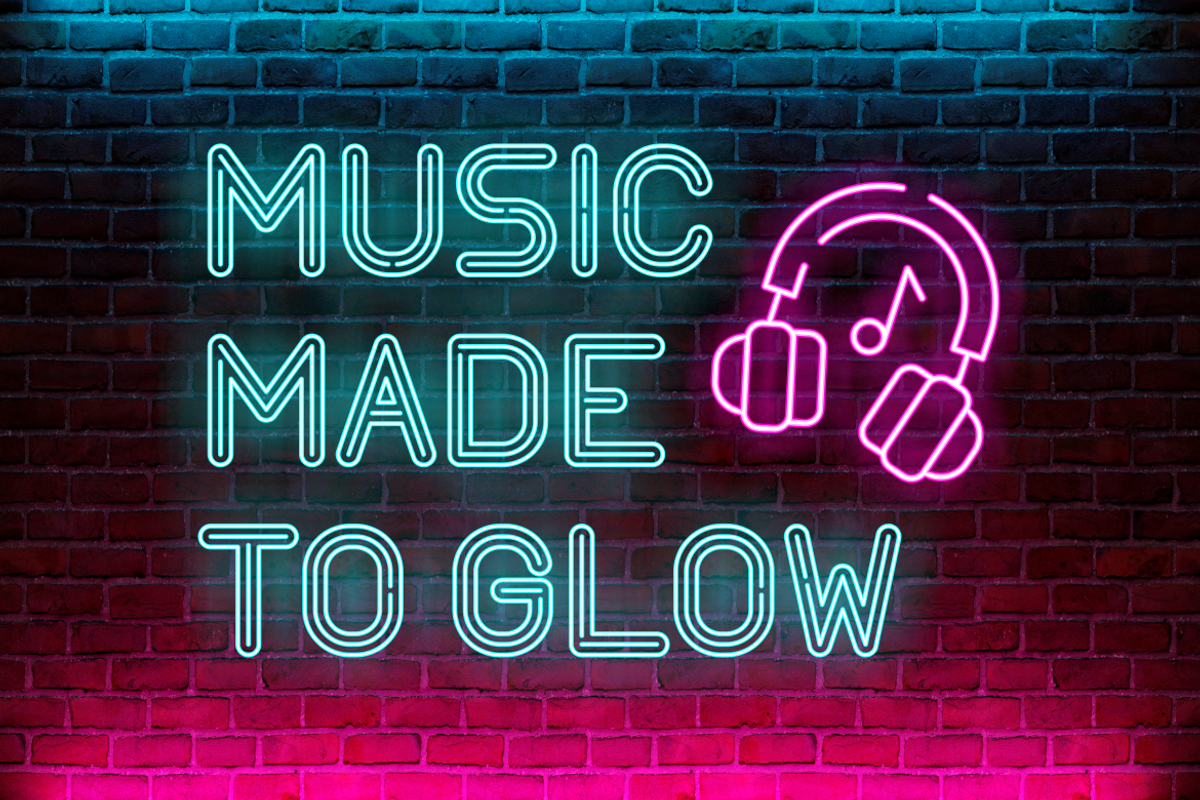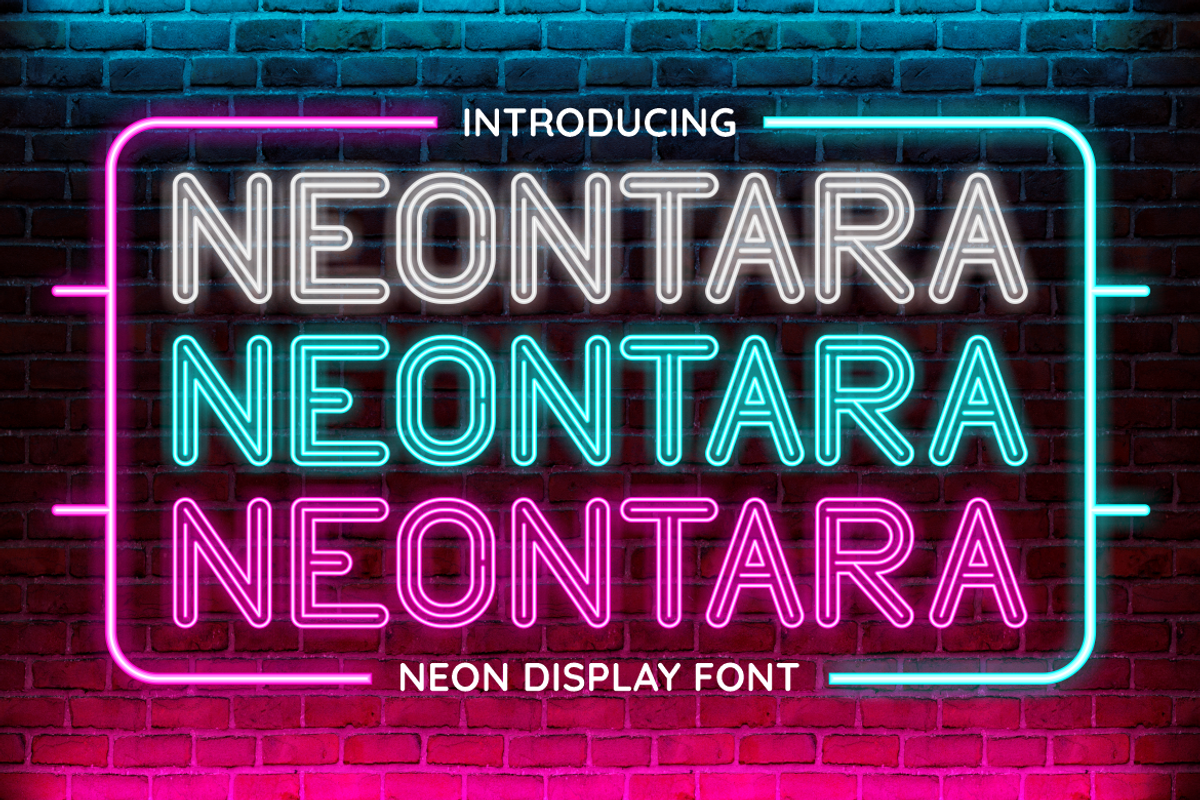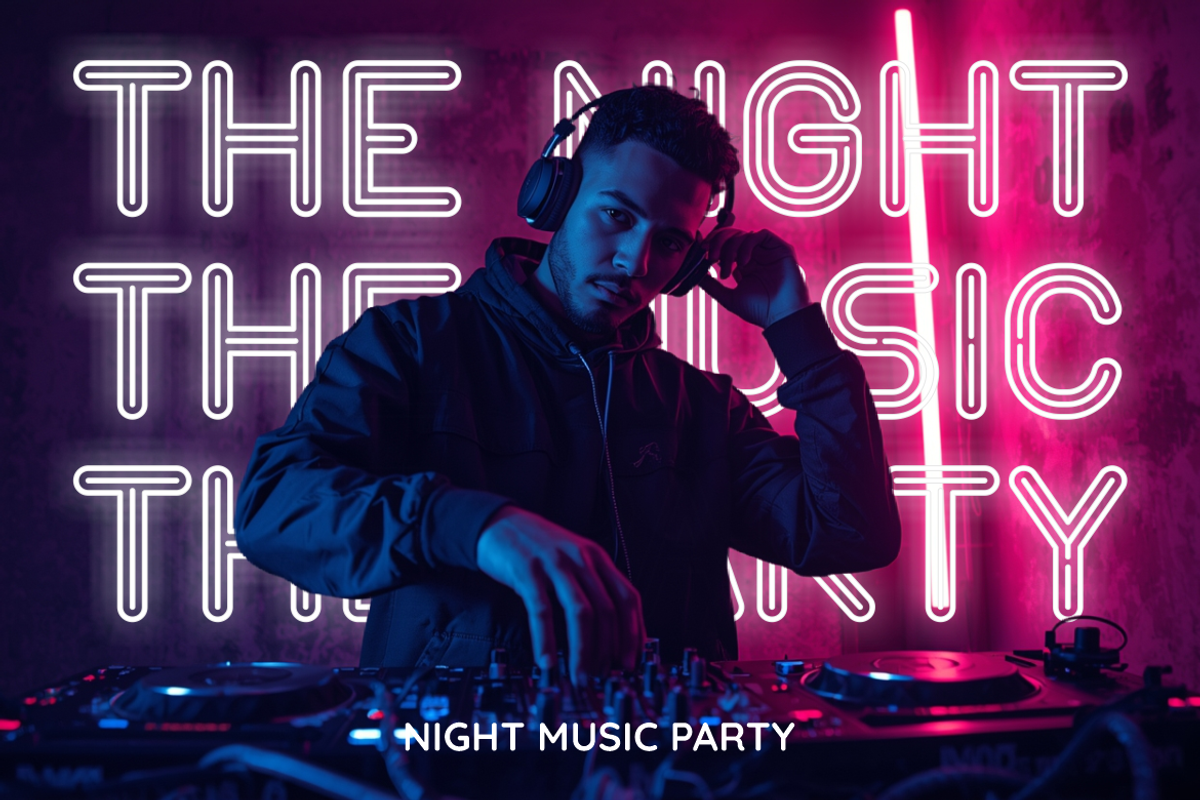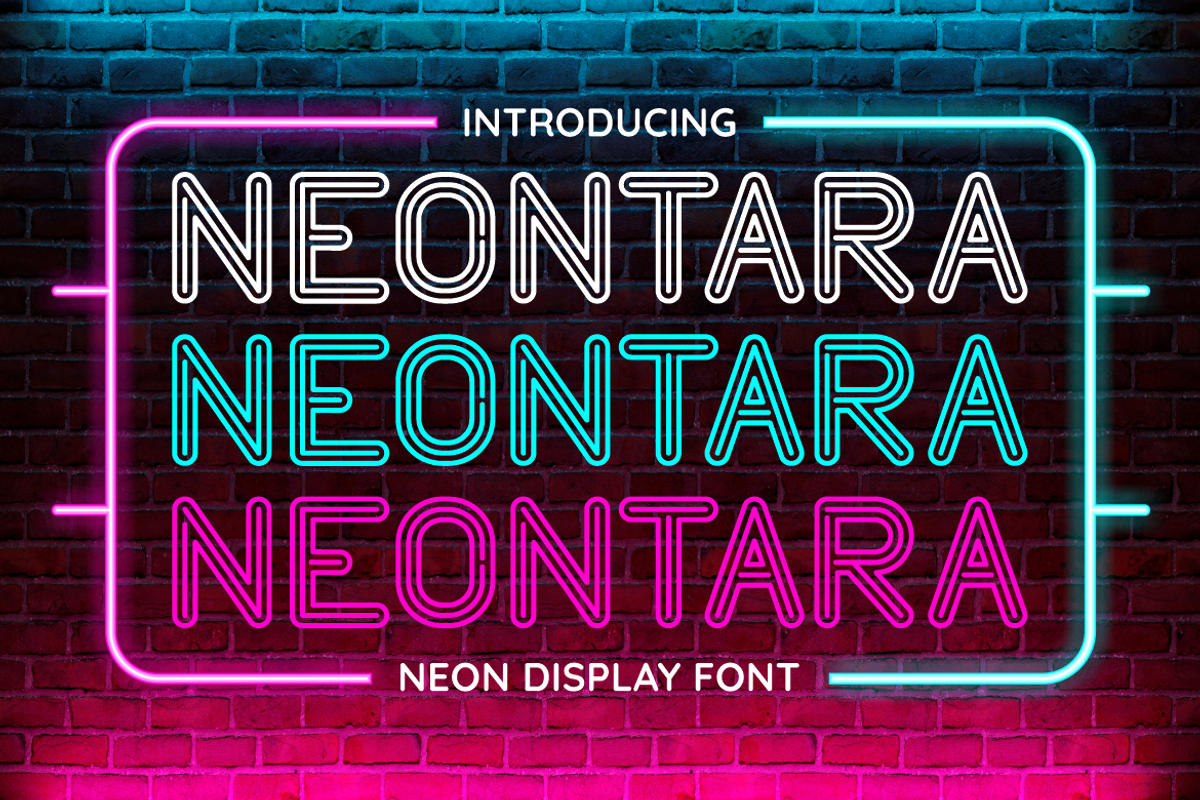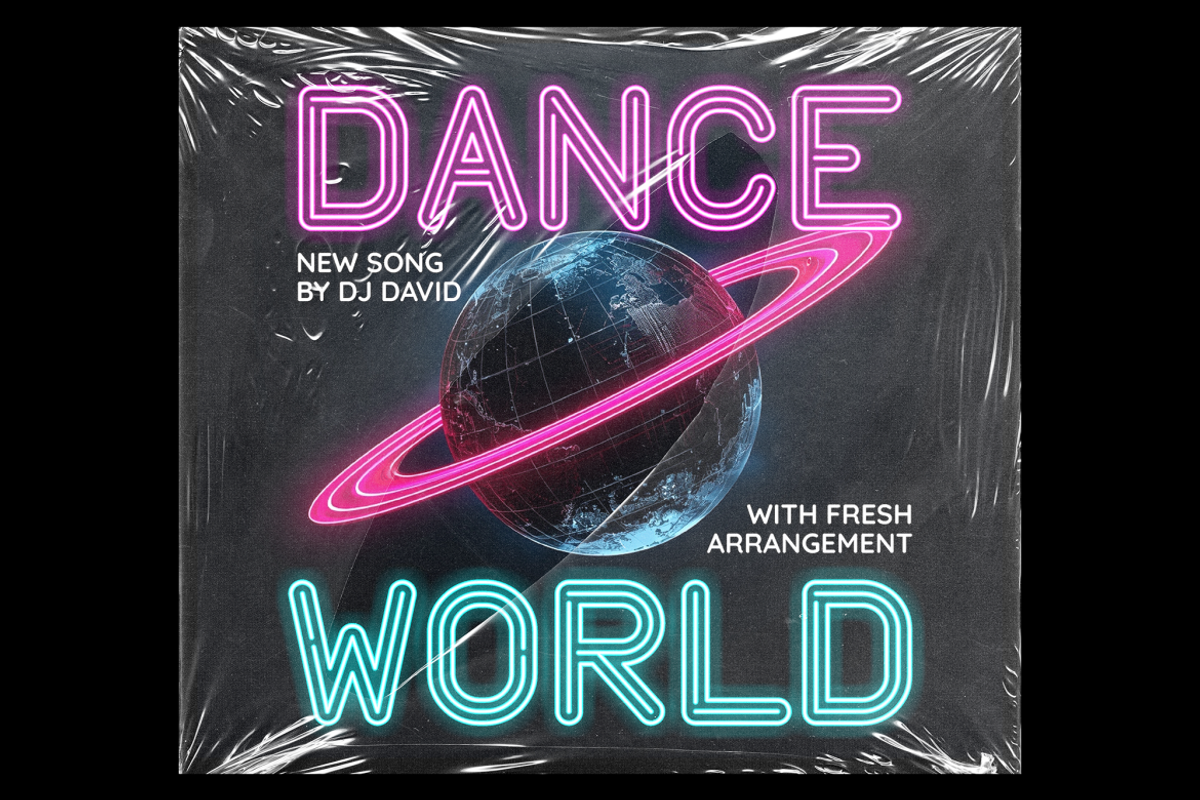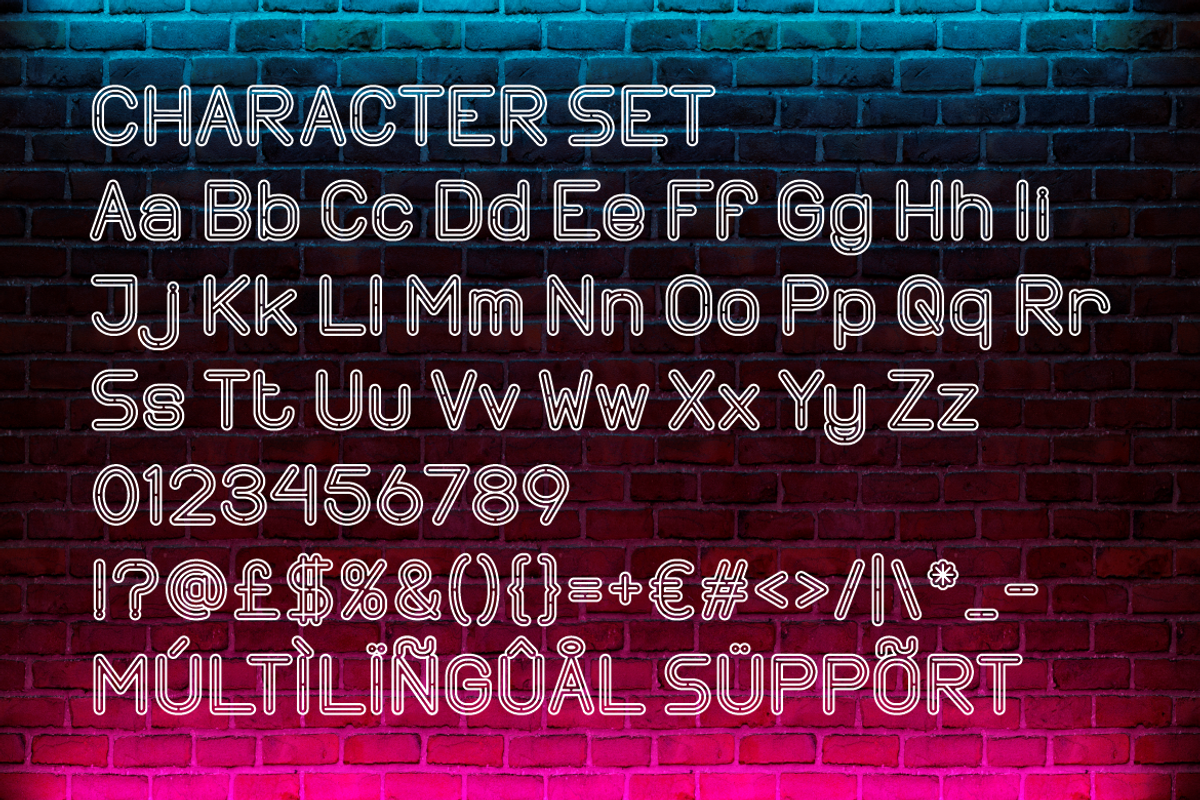
Neontara Neon Display Font
Neontara Neon Display Font is a modern display typeface built around clean line construction and balanced proportions. Each character uses consistent stroke weight that mimics continuous tubing, creating a smooth, uninterrupted flow across letters. The forms are tall and evenly spaced, with rounded corners that soften the geometry and improve legibility at large sizes. Curves feel controlled and precise, while straight segments remain firm and stable. The font avoids heavy textures and instead relies on clarity, rhythm, and structure to communicate its identity. This makes Neontara Neon Display Font highly readable while still expressive. Uppercase and lowercase characters share a cohesive visual logic, supported by clear numerals and well-defined punctuation. The overall shape language feels confident, clean, and intentional, making the font suitable for strong visual statements without visual noise. Designers can rely on its consistent stroke system to maintain harmony across layouts, whether used for short words or extended titles.
In terms of style, Neontara Neon Display Font blends modern, night-inspired aesthetics with a sleek display approach. The design feels futuristic yet accessible, making it adaptable for creative and commercial projects alike. It works especially well for logos, branding systems, headlines, posters, advertising materials, packaging, and editorial titles. The font also performs strongly in event promotions, music visuals, nightlife concepts, film titles, book covers, magazines, and stickers. Its clean line structure allows easy pairing with minimal sans serif or neutral text fonts. Neontara Neon Display Font supports multilingual characters, expanding usability across global projects. The font communicates energy, clarity, and atmosphere without sacrificing readability. Designers seeking a bold neon display typeface with structured lines and modern appeal will find this font reliable for both digital and print applications. Neontara Neon Display Font delivers visual impact while staying clean, controlled, and professional.